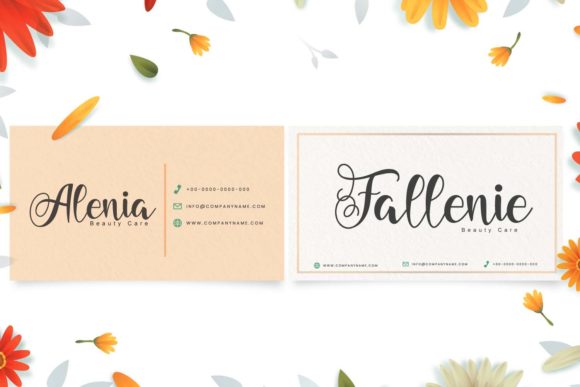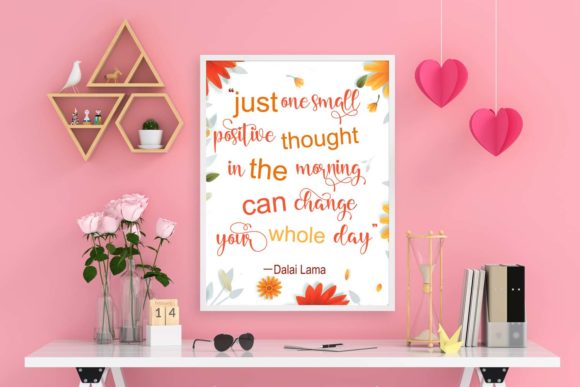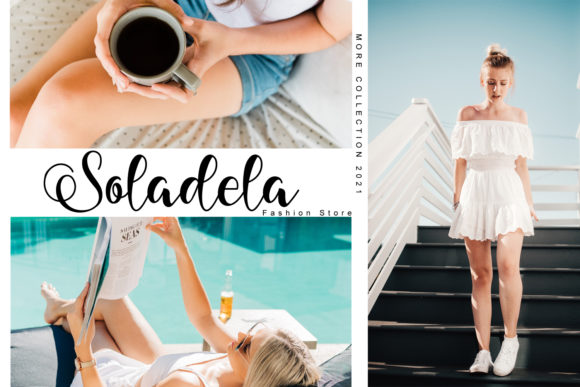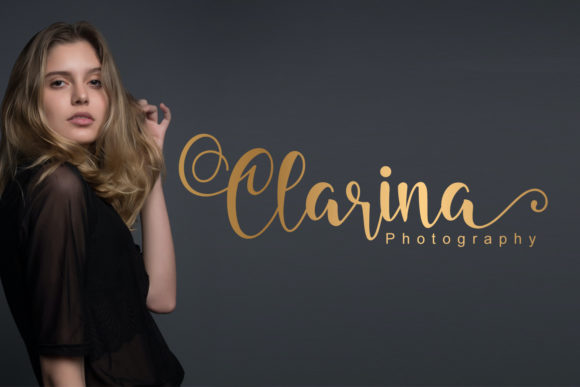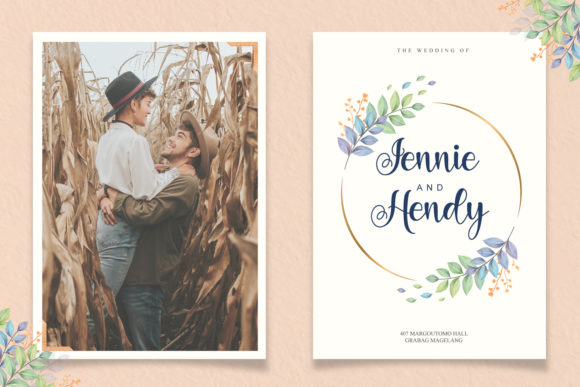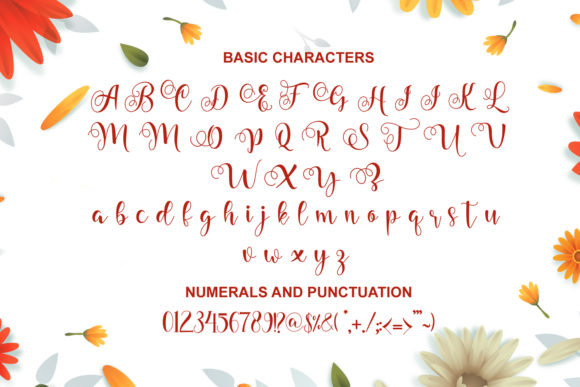
Belladeya Font: Elevate Your Designs with Elegance and Romance
Are you a designer or crafter looking for a font that exudes elegance, romance, and sophistication? Look no further than the stunning Belladeya Font. This beautiful script font is perfect for adding a touch of whimsy and luxury to your designs, making it ideal for a wide range of projects, from wedding invitations to business cards.
The Beauty of Belladeya Font
Belladeya Font is a true masterpiece, boasting an incredibly elegant and flowing design that is sure to captivate your audience. Its varying baseline, smooth lines, and gorgeous glyphs all come together to create a font that is both visually stunning and highly legible. Whether you’re looking to add a touch of romance to a wedding invitation or create a luxurious logo for a high-end brand, Belladeya Font is the perfect choice.
Perfect for Romantic and Dreamy Designs
Belladeya Font is specifically designed to add a romantic, dreamy touch to your designs. Its beautiful, flowing lines and elegant glyphs make it perfect for a wide range of projects, including:
• Thank you cards and greeting cards
• Quotes and typography art
• Logos and branding materials
• Business cards and letterheads
Key Features of Belladeya Font
Belladeya Font boasts a range of features that make it the perfect choice for designers and crafters. Some of its key features include:
• Varying baseline for a natural, organic feel
• Smooth lines and elegant glyphs for a luxurious look
• Stunning alternates for added versatility
• Highly legible, even at small sizes
Why Choose Belladeya Font?
With so many fonts to choose from, why should you choose Belladeya Font for your next project? Here are just a few reasons why:
• Unique and distinctive design that will make your projects stand out
• Highly versatile, suitable for a wide range of projects and applications
• Elegant and sophisticated, perfect for luxury brands and high-end designs
• Easy to read and highly legible, even at small sizes
Tips for Using Belladeya Font
To get the most out of Belladeya Font, here are a few tips to keep in mind:
• Use it sparingly: Belladeya Font is a statement font, so use it sparingly to add impact to your designs.
• Pair it with contrasting fonts: Pair Belladeya Font with contrasting fonts to create visual interest and add depth to your designs.
• Experiment with sizes and colors: Don’t be afraid to experiment with different sizes and colors to find the perfect combination for your project.
In conclusion, Belladeya Font is a stunning script font that is perfect for designers and crafters looking to add a touch of elegance and romance to their designs. With its varying baseline, smooth lines, and gorgeous glyphs, it’s the perfect choice for a wide range of projects, from wedding invitations to business cards. So why wait? Download Belladeya Font today and start creating beautiful, luxurious designs that will leave a lasting impression on your audience.